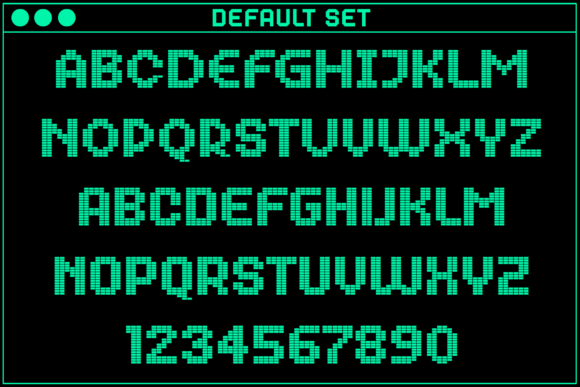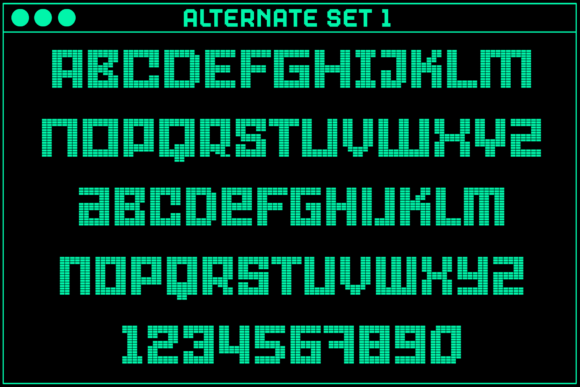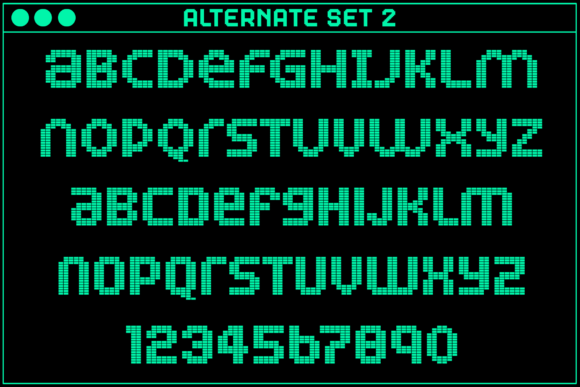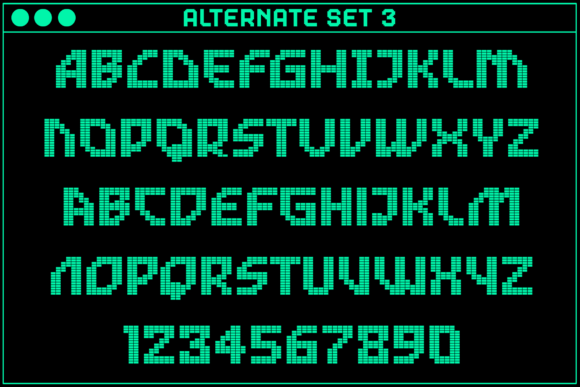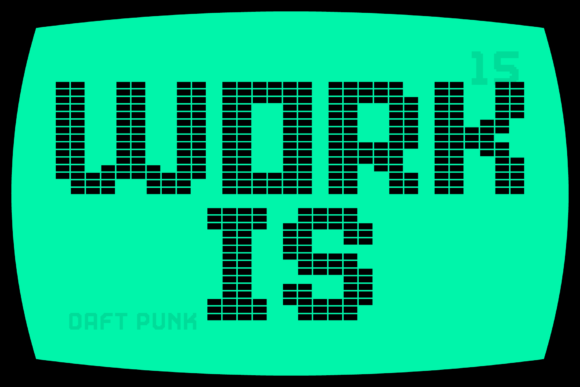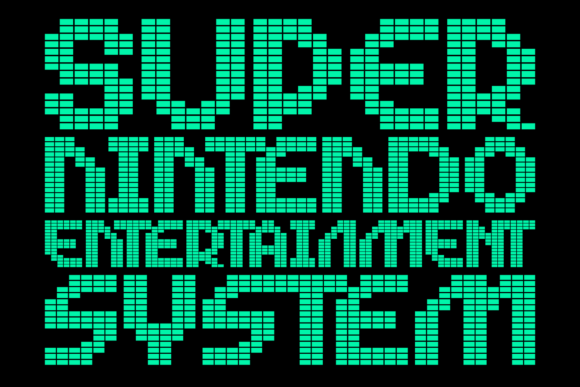
Introduction to Grid Alternate Font
Have you ever been stuck in the middle of a creative project, desperately searching for that one font to give it that extra oomph? I know I have! It’s like your design is missing a vital ingredient, and you just can’t quite put your finger on what it is. For me, that game-changing moment came when I stumbled upon the Grid Alternate Font.
This unique, pixelated display font is a true gem for designers. Its cool, distorted shape adds a trendy touch to any design, making it perfect for those looking to create a high-quality, eye-catching visual identity. With a transparent background and PUA encoding, accessing all glyphs and swashes is a breeze, giving you complete creative freedom to experiment and push the boundaries of your design.
Whether you’re working on a free download project or simply need a design resource to elevate your next creative endeavor, the Grid Alternate Font is an invaluable asset to have in your toolkit. So why settle for ordinary when you can have extraordinary? Let’s dive in and explore the world of Grid Alternate Font together!
Key Features of Grid Alternate Font
- High-quality font design suitable for creative projects, with a modern aesthetic and sleek lines.
- Features a transparent background, allowing for easy layering and customization in design projects.
- Perfect for use in a range of creative projects, from branding and advertising to editorial and publishing designs.
Honest Review: Grid Alternate Font
I recently stumbled upon the Grid Alternate Font while searching for a unique design resource for a creative project. The first thing that caught my attention was its high quality and versatility. The font is a perfect blend of modern and minimalist styles, making it an ideal choice for various design applications.
- ✨ Beautifully designed characters with a transparent background, allowing for seamless integration with any design.
- ✨ Offers a wide range of languages, making it a great option for international projects.
- ⚠️ Limited font sizes and styles available, which might not be suitable for all design projects.
- ⚠️ Some users may find the font’s minimalistic design too plain for their taste.
Overall, I’m quite impressed with the Grid Alternate Font. Its high quality and unique design make it a valuable addition to any designer’s toolkit. While it may have some limitations, I believe it’s a great resource for designers working on creative projects who want to add a touch of sophistication to their designs.
Grid Alternate Font
The Grid Alternate Font is a versatile design resource ideal for various creative projects. It features a high-quality, modern aesthetic with a transparent background, making it perfect for backgrounds, overlays, or text effects.
Tips for Getting the Most Out of Grid Alternate Font
To get the most out of the Grid Alternate Font, experiment with different font sizes, colors, and styles. Combine it with other design elements to create a unique and eye-catching visual effect.
The Grid Alternate Font is suitable for a wide range of creative projects, including social media graphics, presentations, and website designs. Its modern aesthetic and transparent background make it a versatile design resource for various applications.